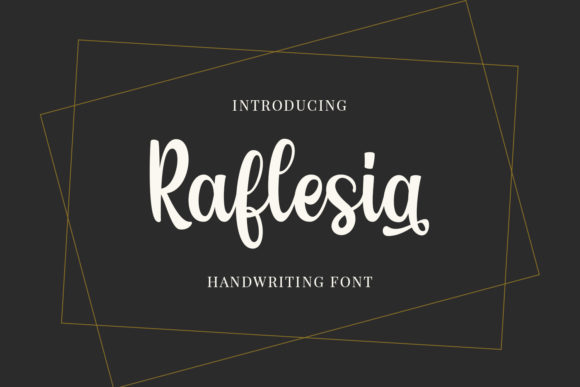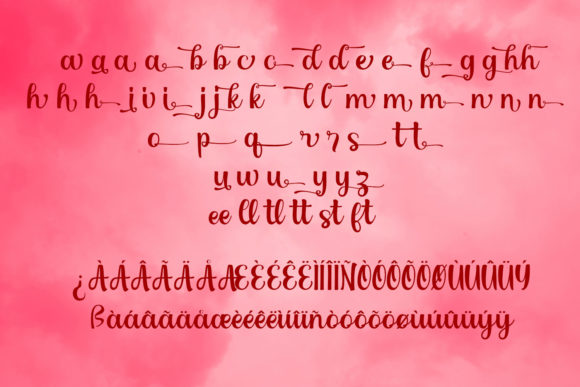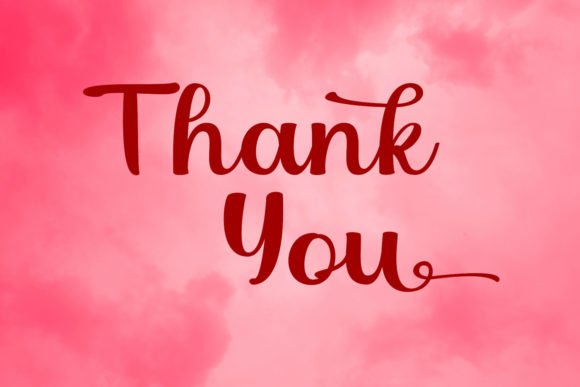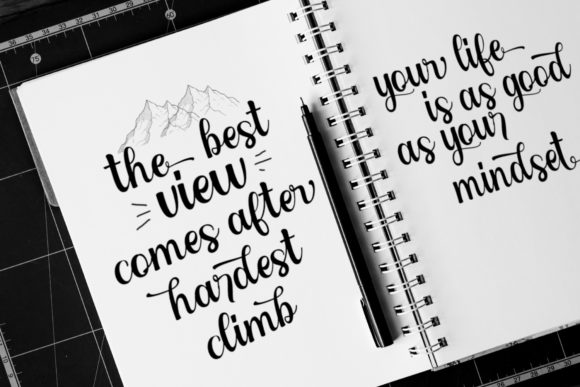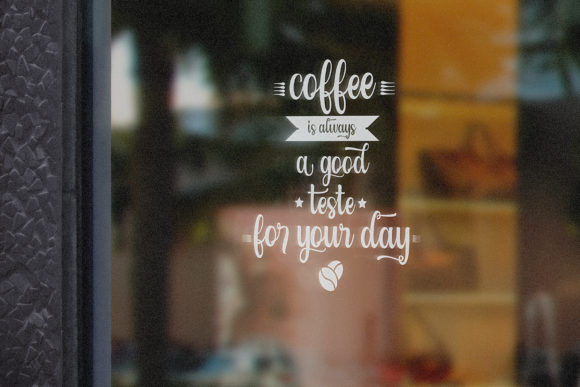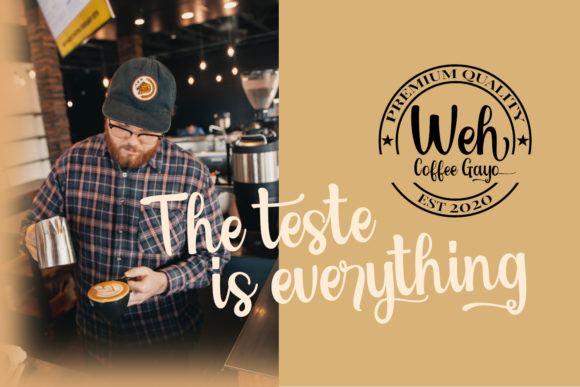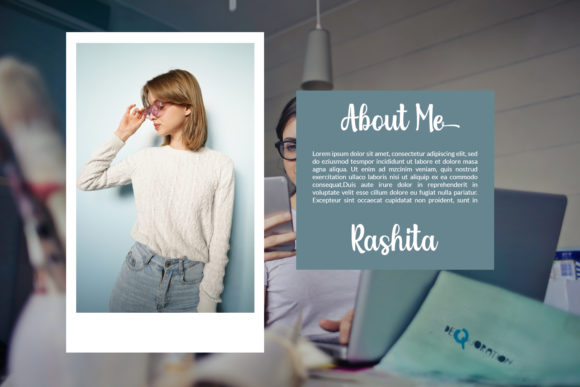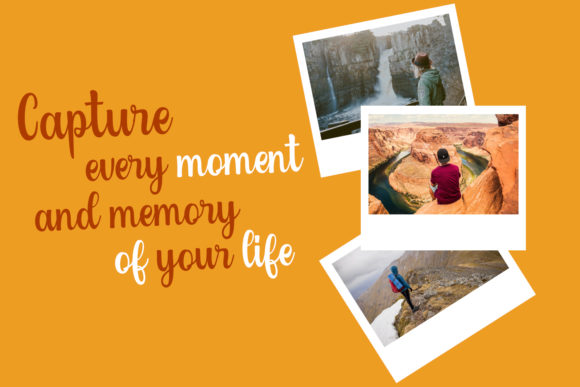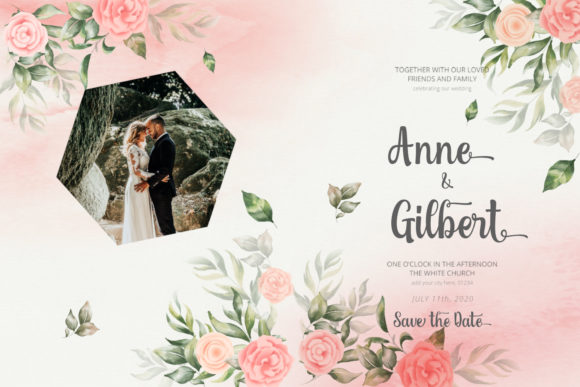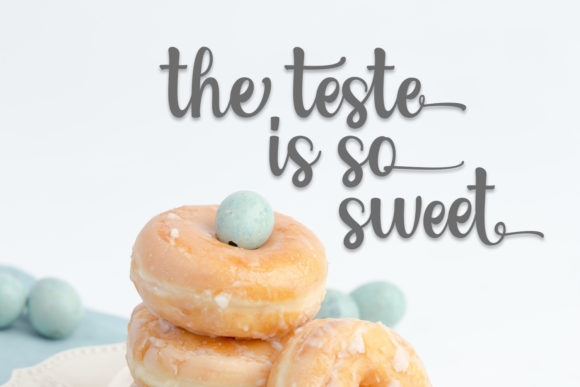
Raflesia Font
About Raflesia Font
Raflesia is an elegant script font with a contemporary atmosphere and impeccable form, inspired by timeless classic calligraphy. Not too thin and not too thick, balanced and varied, Raflesia was designed to enhance the beauty of your projects. This font is PUA encoded which means you can access all of the glyphs and swashes with ease!